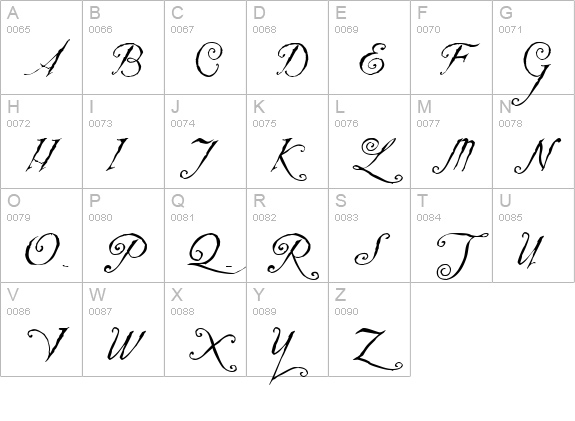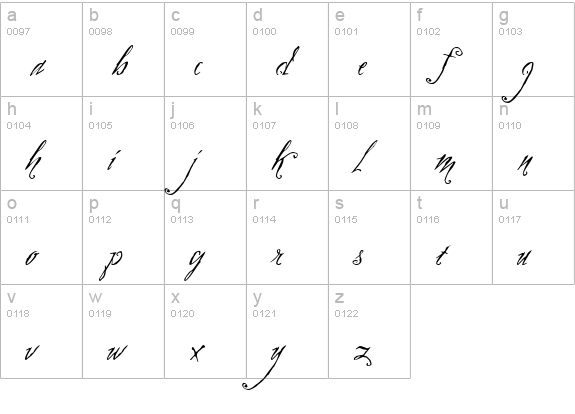
Zothique Demo Font Details
Zothique Demo font is a captivating and elegant typeface that exudes sophistication and charm. With its intricate details and unique design, this font is perfect for adding a touch of luxury to your projects. Whether you're creating invitations, branding materials, or websites, Zothique Demo font is sure to make a lasting impression. The best part is that Zothique Demo font is completely free to use! You can download it easily from FontsMarket.com and start using it in your designs right away. Don't miss out on this opportunity to elevate your work with this stunning font. Download Zothique Demo font today and take your designs to the next level.